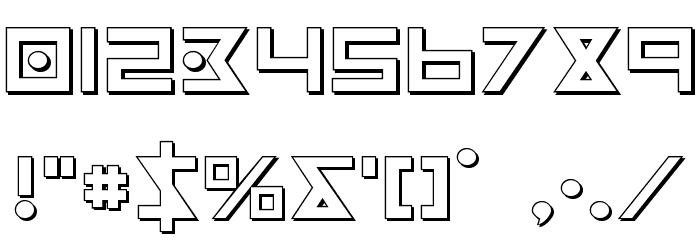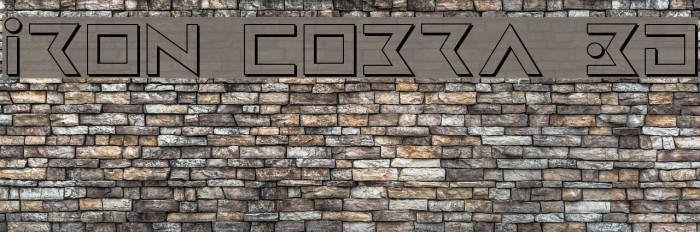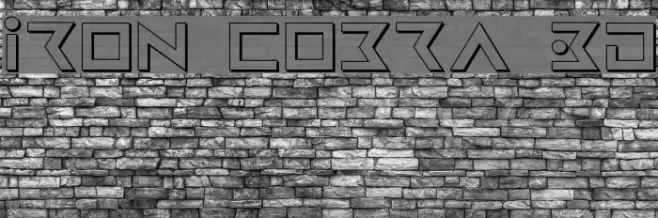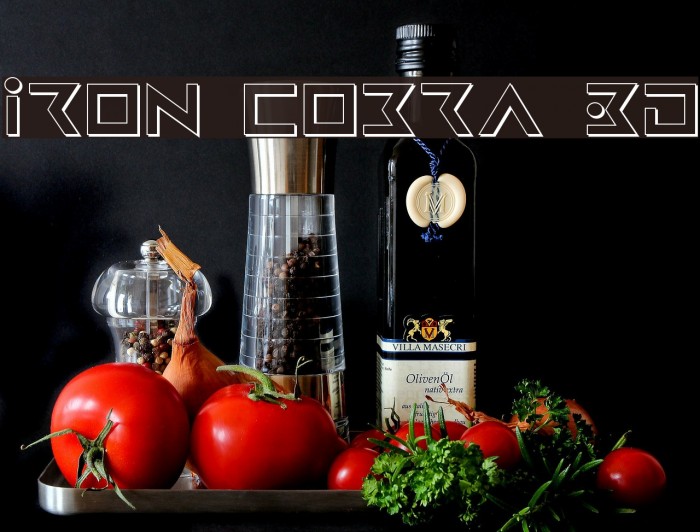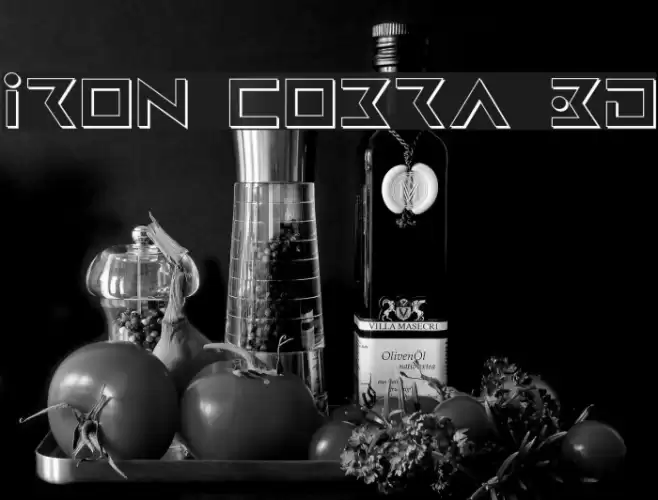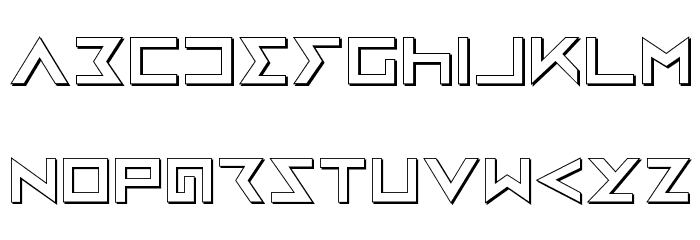
Iron Cobra 3D Font
Iron Cobra 3D Description
This font features a bold, geometric design with a futuristic and industrial aesthetic. The characters are constructed with sharp angles and straight lines, giving it a mechanical feel. Each letter is uniquely stylized, incorporating circular elements and cut-out sections that add to its distinctiveness. The font maintains a consistent line weight throughout, emphasizing its modern and edgy appearance. The numerals and special characters follow the same design principles, ensuring a cohesive look across all elements. This font is ideal for projects that require a strong, impactful visual presence.
| Overall Style | Futuristic |
| Proposed Projects | Ideal for sci-fi themed designs, video game titles, technology branding, and futuristic posters. |